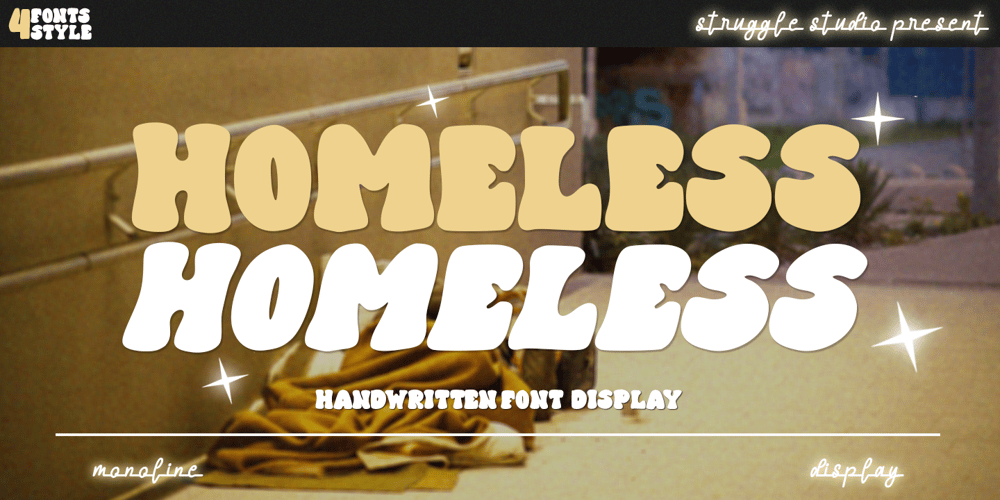
Homeless Font Family was designed by Andri Kurniawan and published by Struggle Studio. Homeless contains 4 styles and family package options. Homeless is a Duo Font (Monoline and Display), featuring a Modern and soft look. This original look will attract a variety of crafty ideas, from branding and titles to stationery.